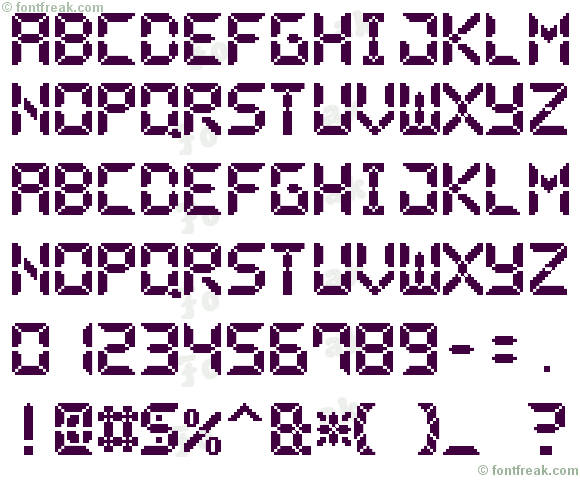
Pixel LCD-7
About Pixel LCD-7
The Pixel LCD-7 font by Style-7 embodies a distinctive pixelated aesthetic, categorized under display fonts. This typeface captures the essence of retro computing and digital displays, featuring a blocky structure reminiscent of LCD screens. With its uniform stroke weight and minimal contrast, Pixel LCD-7 offers a bold and straightforward appearance that is both eye-catching and functional. The spacing between characters is carefully calibrated, ensuring legibility while maintaining the font's unique digital flair.
This font is particularly well-suited for a variety of creative applications. It shines in video game graphics, where a nostalgic nod to the pixel art style enhances the overall aesthetic. Additionally, it is ideal for digital art projects, such as website headers or promotional graphics for tech products, where a modern yet retro vibe is desired. Pixel LCD-7 can also effectively set the tone for themed events, making it a great choice for flyers or invitations related to gaming conventions or tech expos. Graphic designers and content creators looking to evoke a sense of nostalgia will find this font invaluable for their projects.
Pixel LCD-7 stands out due to its unique blend of retro charm and modern utility. This font not only captures attention with its distinct visual characteristics but also offers versatility across multiple design contexts. For those seeking a nostalgic yet contemporary typeface, the Pixel LCD-7 font free download is an excellent option to consider.